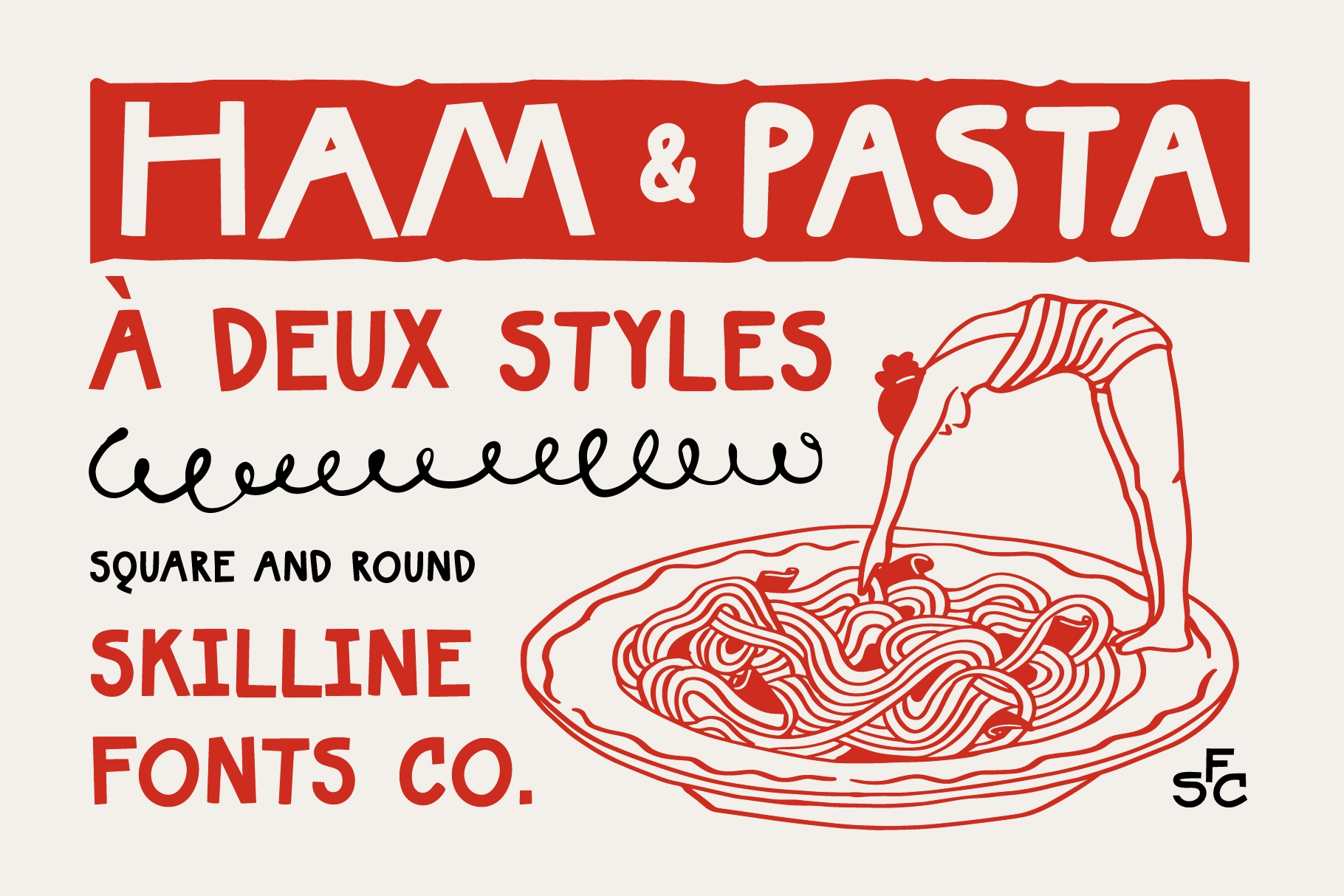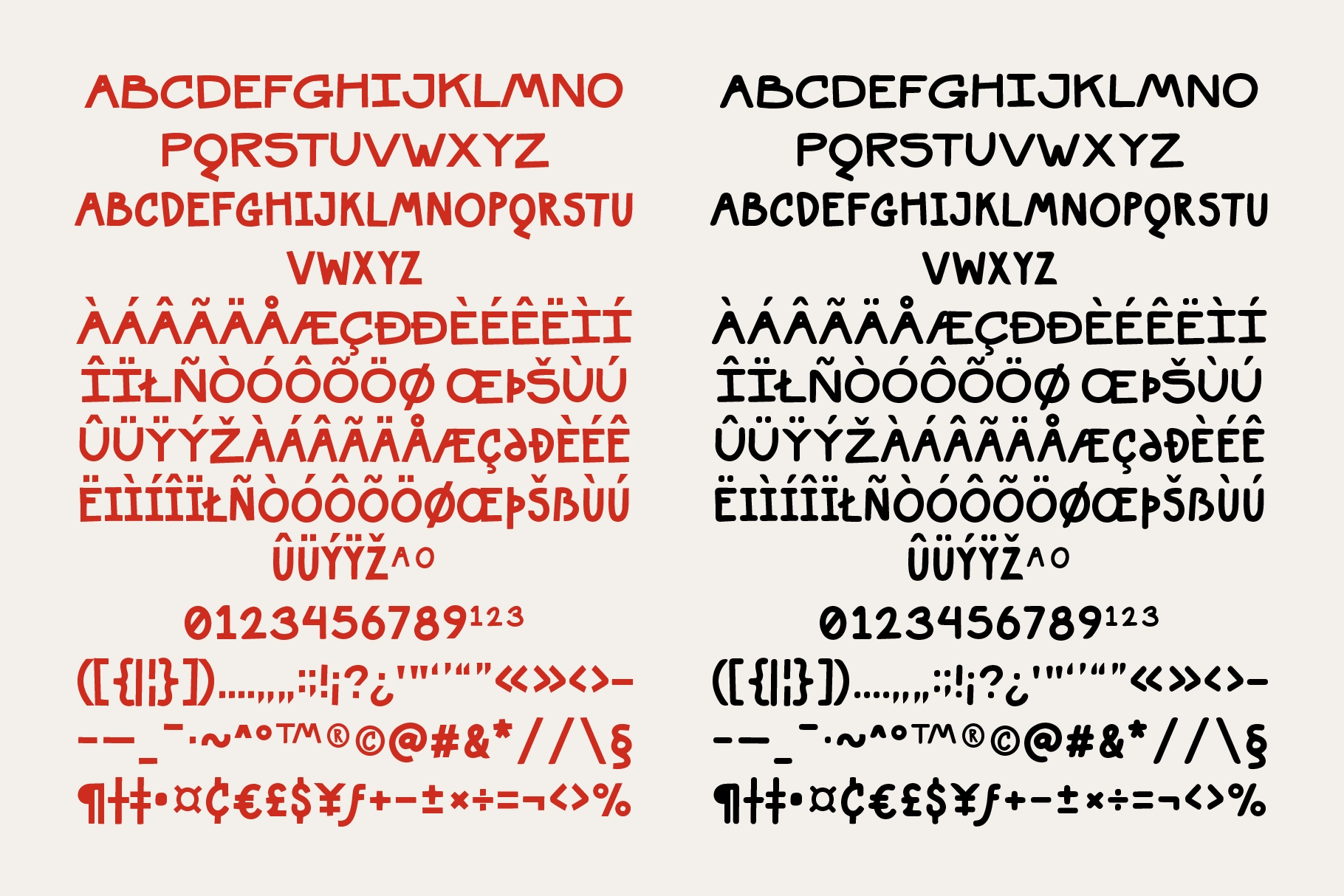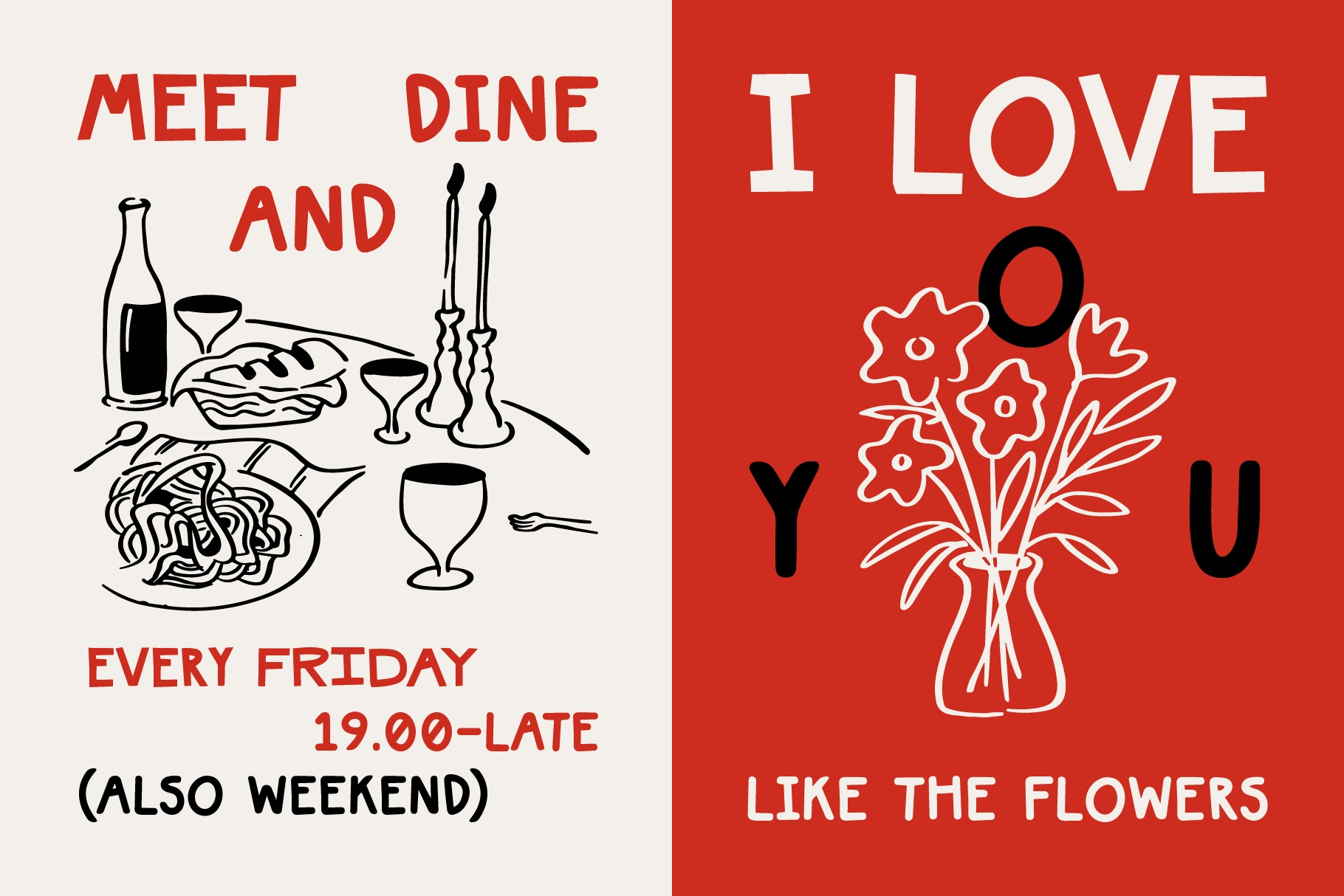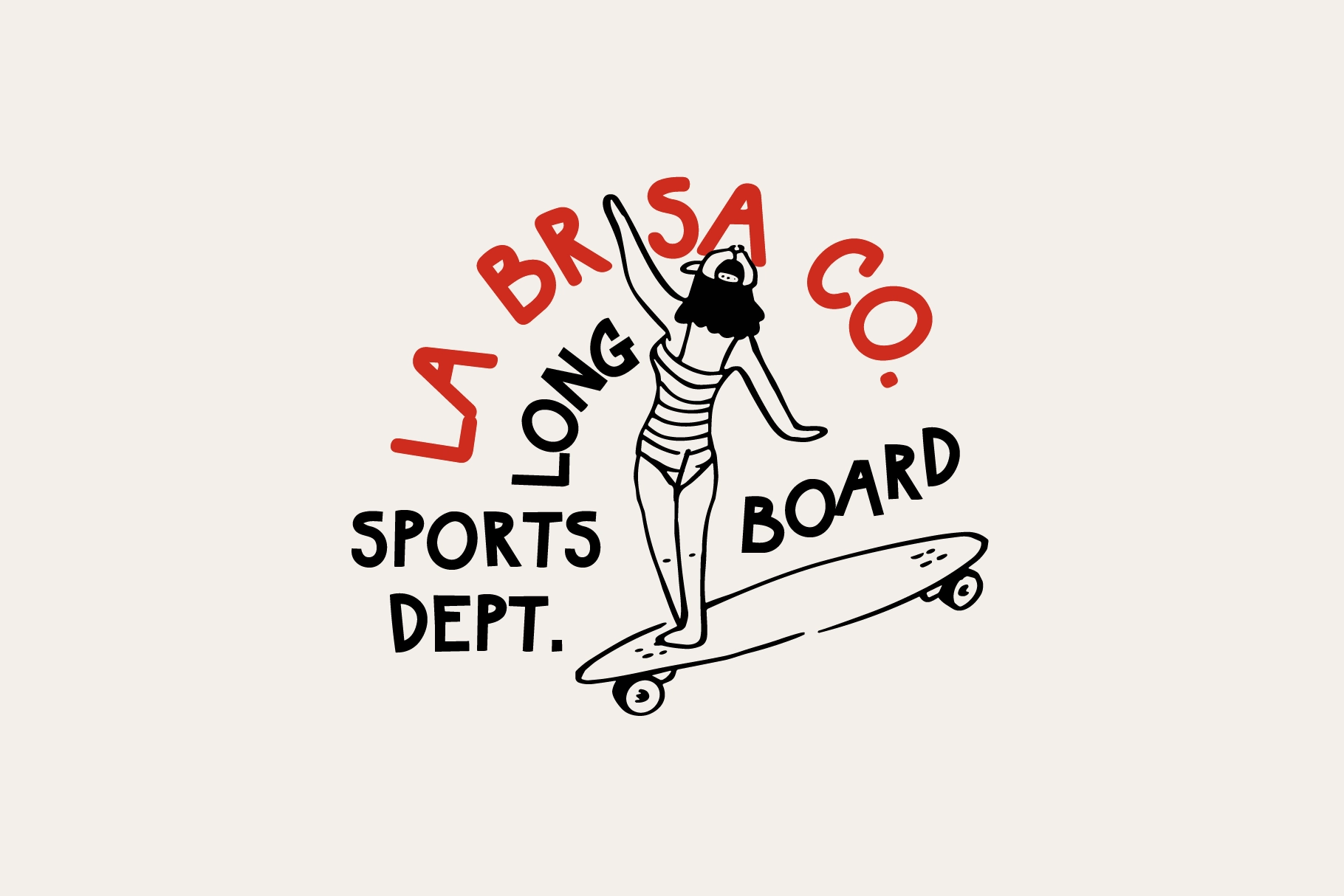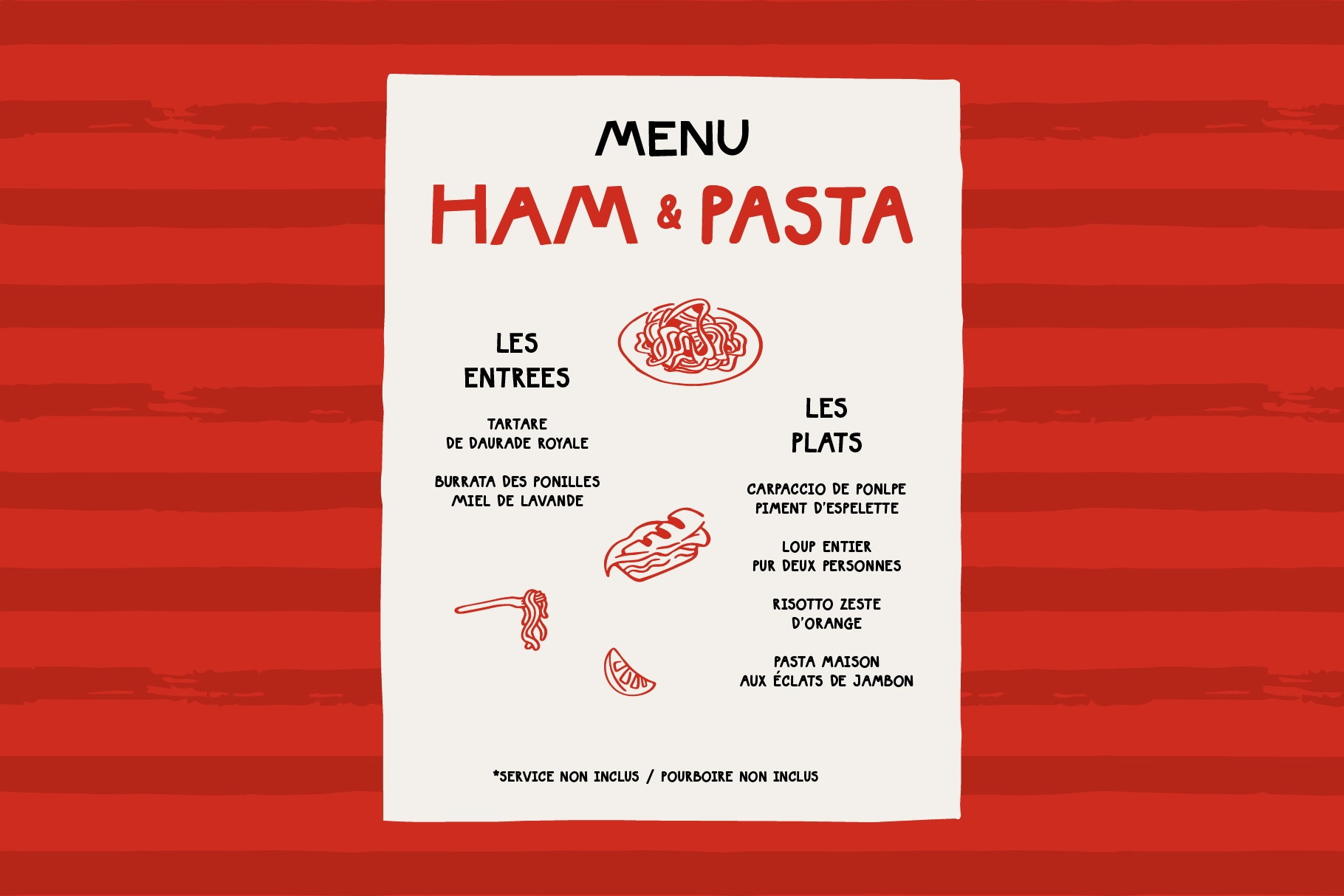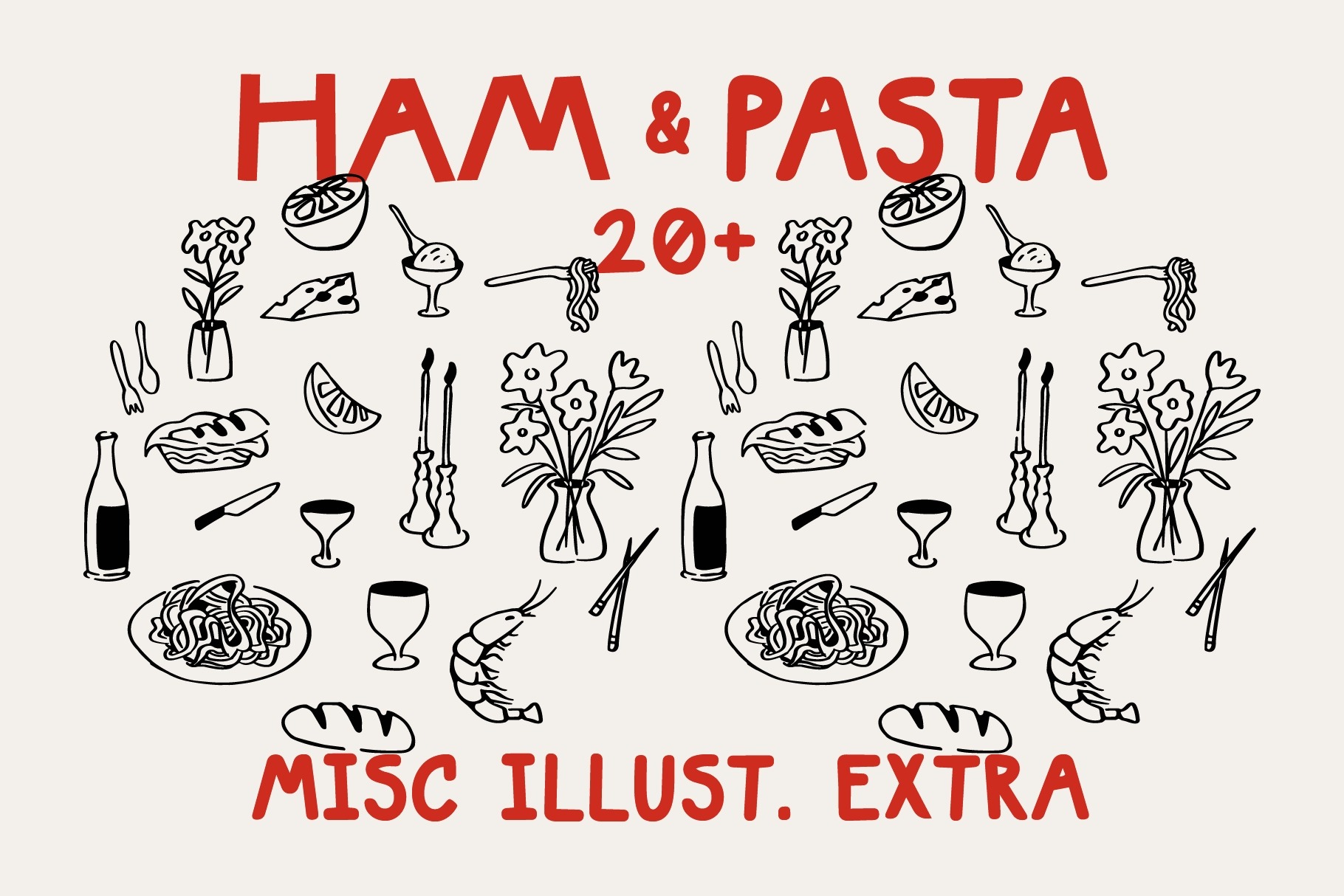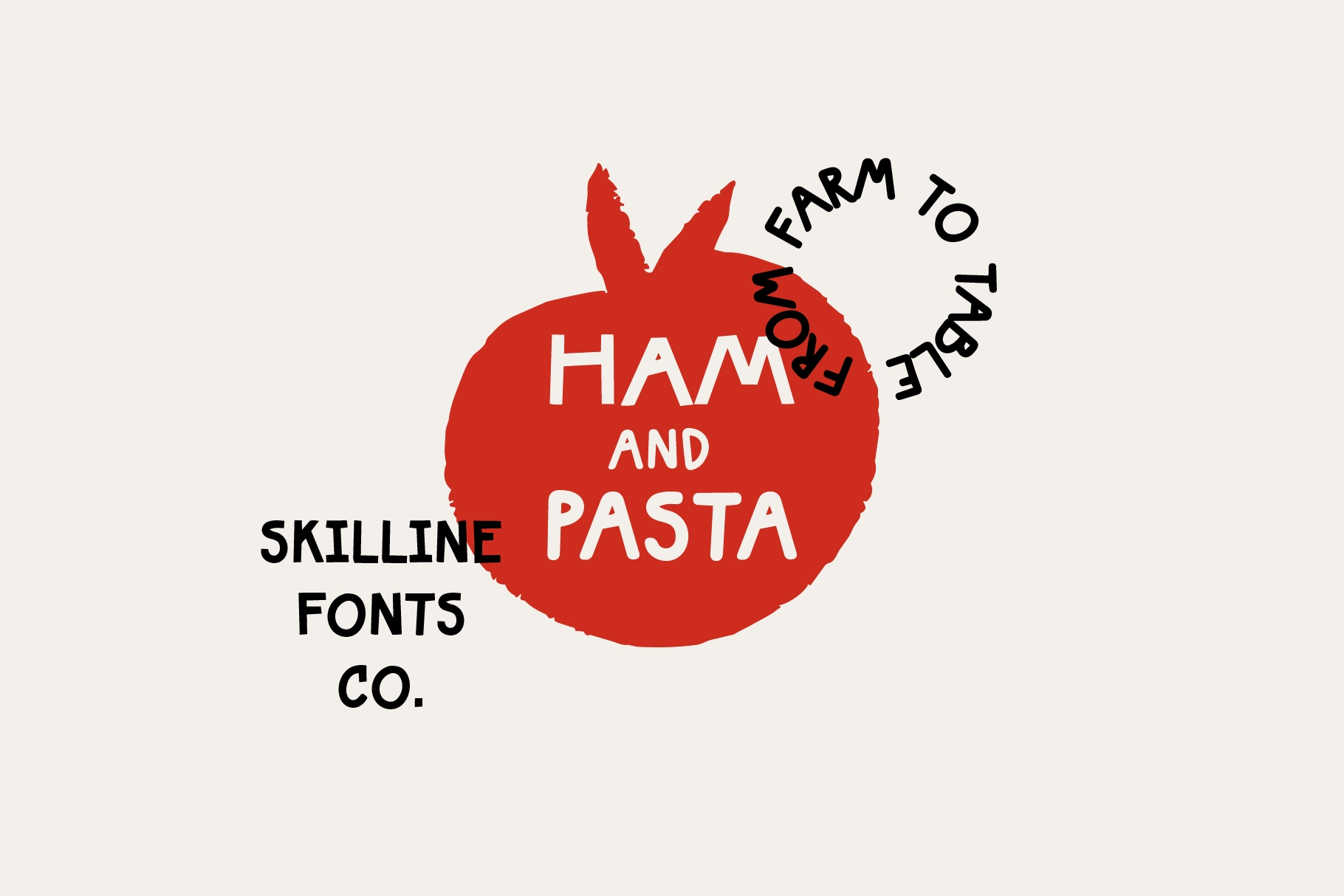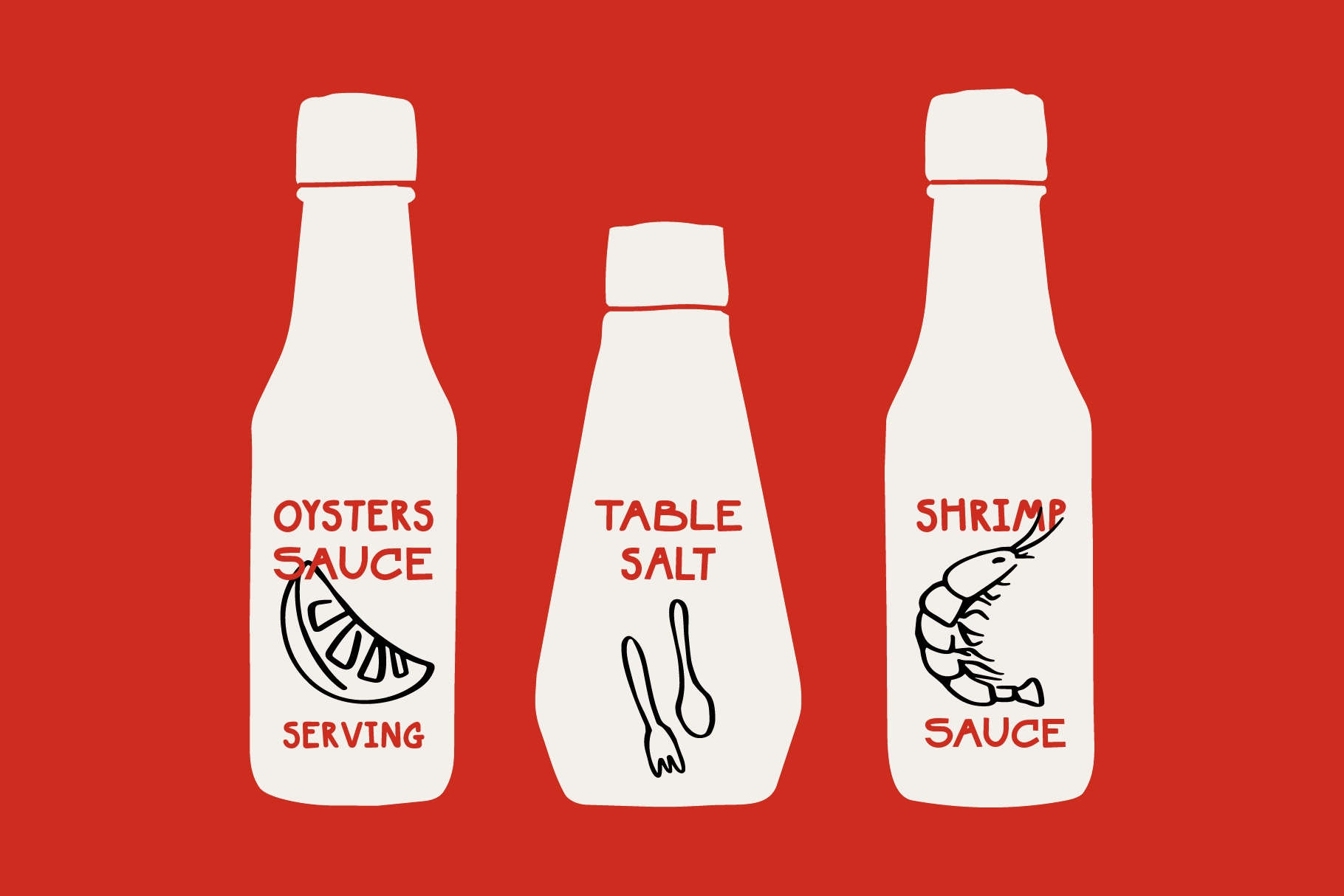
SFC Ham & Pasta - Hand Drawn Food Font
SFC Ham&Pasta
Round
This hand-drawn display font is chunky, loose, and full of kitchen-table character. Its uneven cuts, rounded corners, and casual rhythm give words the look of quick marker lettering on a menu board, somewhere between a neighborhood trattoria and a very confident napkin sketch.
It comes in two styles, square and round, with 20+ hand-drawn illustration extras for building food identities with a bit of appetite. Use it for restaurant logos, café menus, pasta packaging, bistro posters, recipe cards, deli labels, food truck branding, market signage, social media graphics, merch, editorial titles, event flyers, and more.
- 2 styles: Square and Round
- Accented characters
- 20+ hand-drawn illustration extras